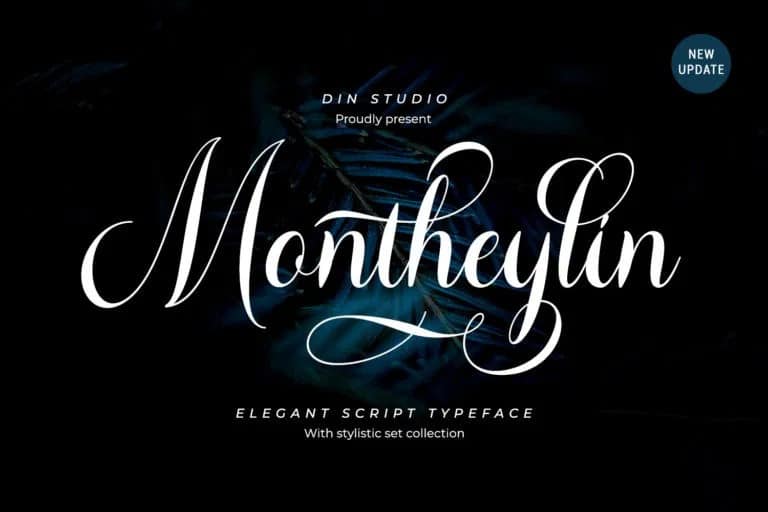
Montheylin Font
Montheylin Calligraphy Font very easy to use and really playful. You can explore to create a combination that would be nice. It brings a beautiful and modern typeface. Made for any professional project branding. It is the best for logos, branding, wedding and quotes.